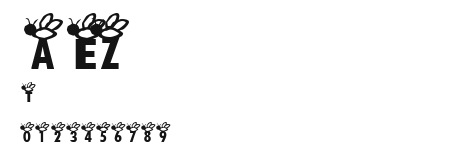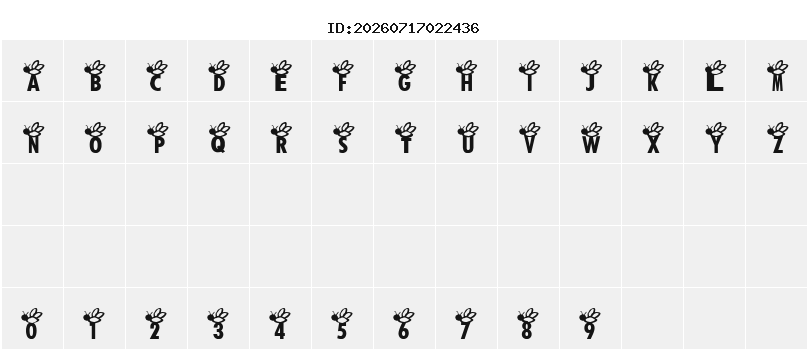
• Font Name: AEZ buzz buzz
• Font ID: Macromedia Fontographer 4.1 AEZ buzz buzz
• Full Font Name: AEZ buzz buzz
• Version: Macromedia Fontographer 4.1 9/1/02
• PostScript Name: AEZ buzz buzz
• Character Count: 257
About AEZ buzz buzz.ttf
AEZ buzz buzz.ttf is a modern, elegant sans-serif font designed for ultimate readability and visual harmony. Perfect for branding, headlines, web design, and print materials.